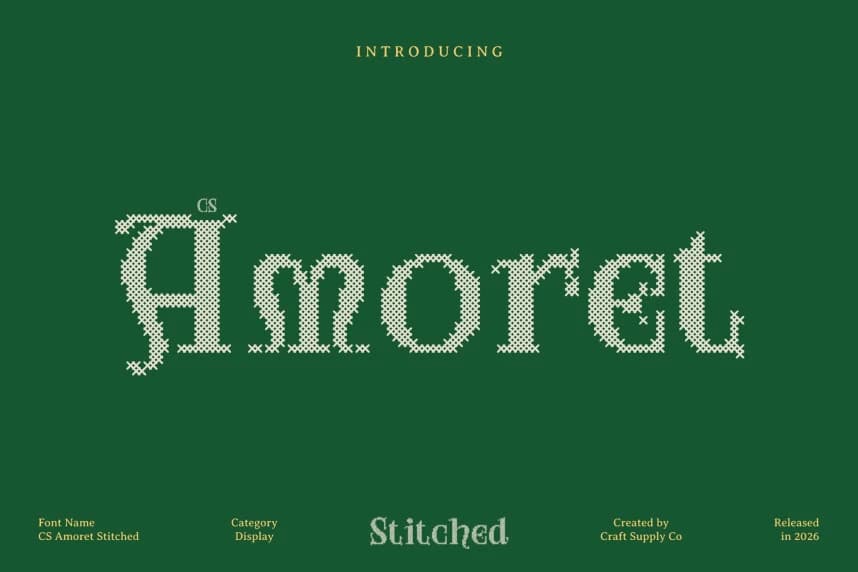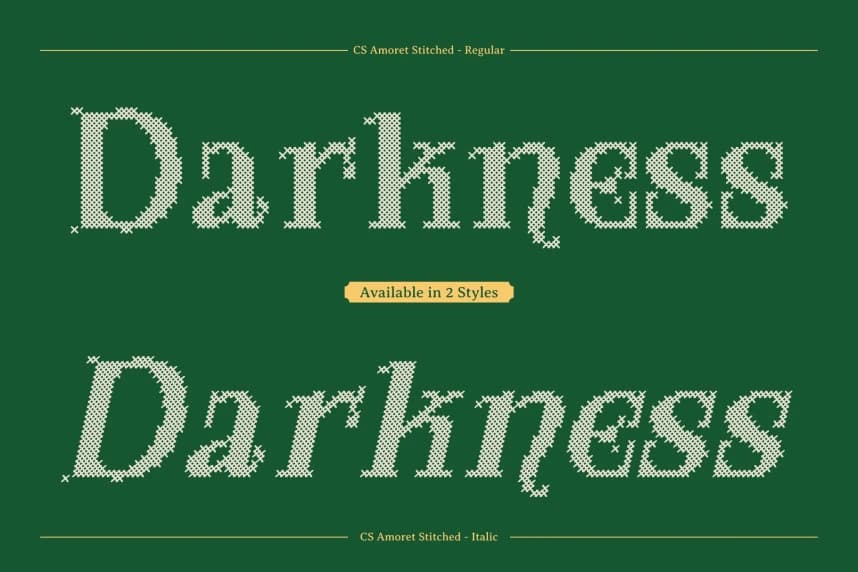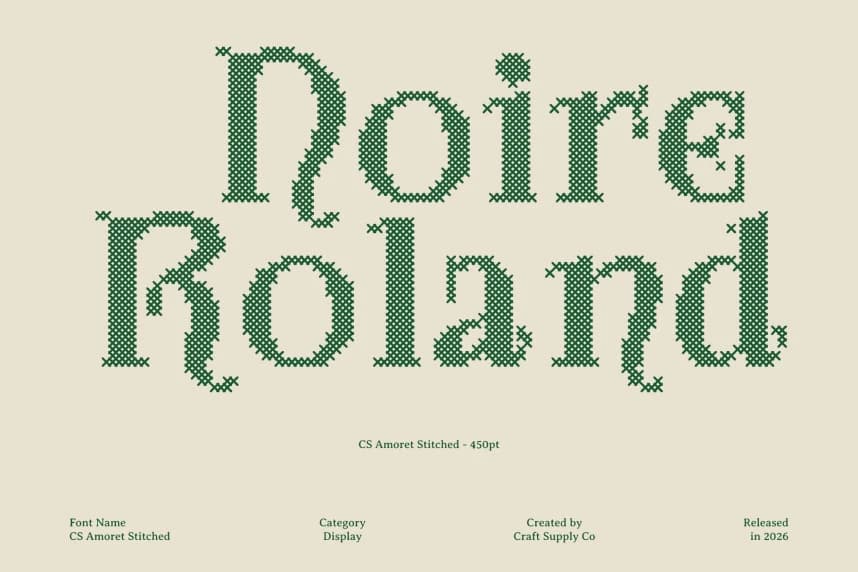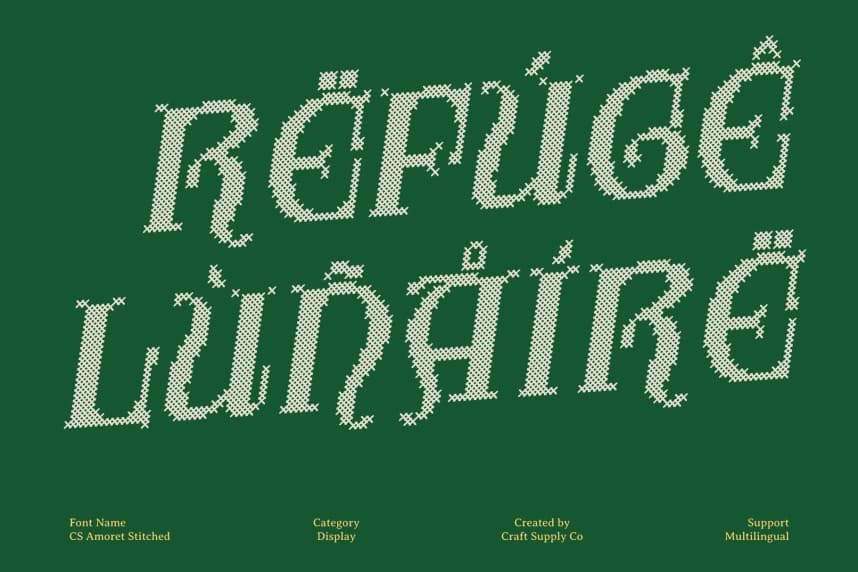
CS Amoret Stitched Font
CS Amoret Stitched Font – Art Nouveau Display Serif Font Intricate Art Nouveau Elegance with Handcrafted Detail. This is a display serif font that captures the elegance and artistry of the Art Nouveau movement.